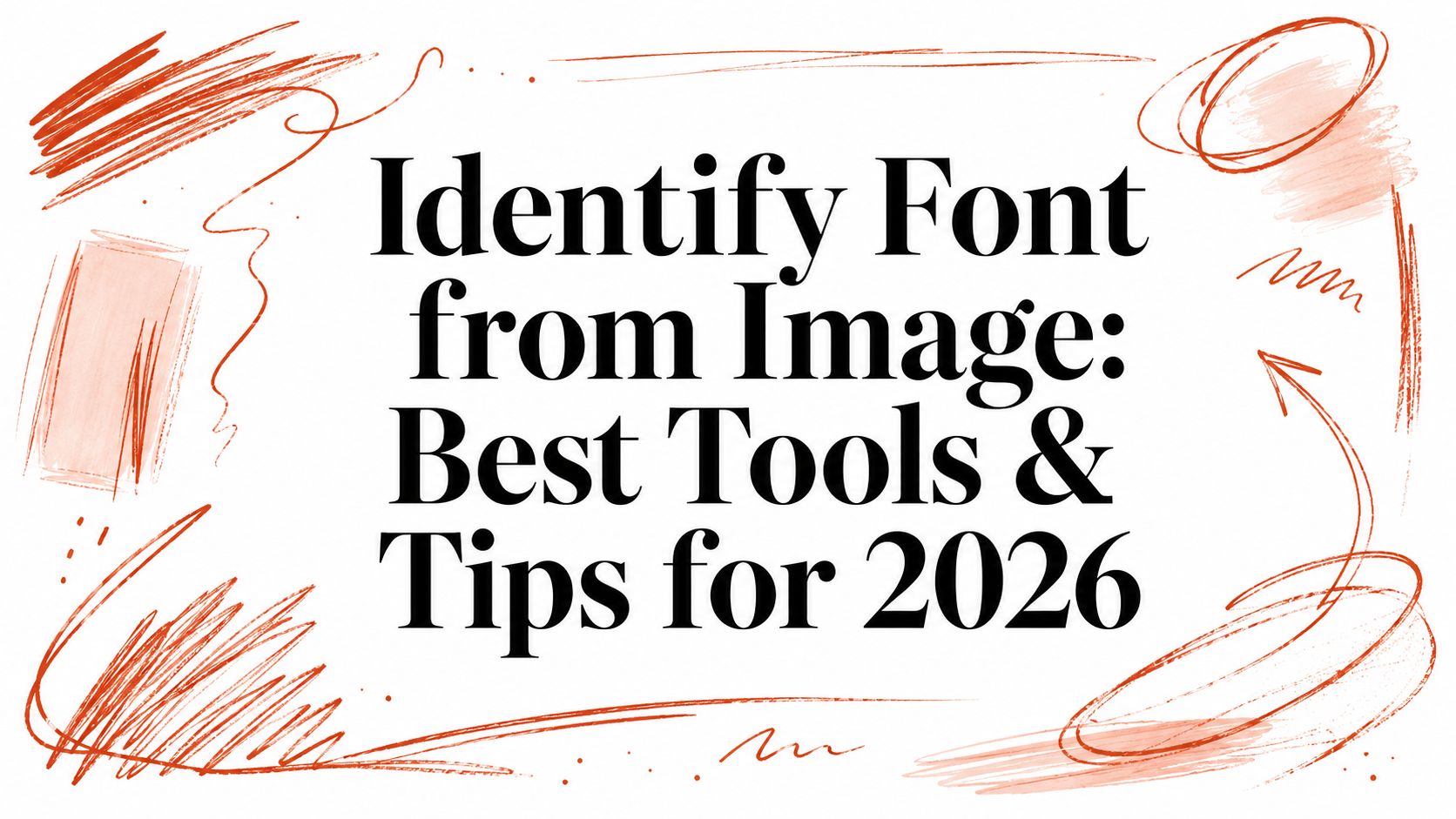
A client sends over a low-resolution JPEG of an old ad, a cropped logo from packaging, or a phone photo of signage and asks a simple question: can we use this font on the new site?
That request sounds like a design task. In practice, it touches design consistency, engineering, procurement, and legal review at the same time. If you identify the wrong typeface, the redesign drifts off-brand. If the developer ships the wrong files, performance can suffer. If the team assumes a font used in print is also cleared for web use, the business can end up in a licensing dispute.
Many approach this as a matching game. Professionals can't. They need a workflow that helps them identify a font from an image, document how they got there, and then verify whether the organization has the right to use that font in the intended channel.
Why Finding That Font Is Harder Than It Looks
The hardest jobs rarely start with a clean specimen sheet. They start with compromised evidence.
A designer gets a screenshot pulled from a social post. A project manager forwards a flattened PDF exported years ago. A brand team has only a phone photo from a trade-show wall. The visible text may be warped, compressed, outlined, blurred, or cut off halfway through a word. Yet the question still arrives with urgency: “What font is this, and can we deploy it?”
The image is only one part of the problem
If all you needed was a rough visual match, the stakes would be low. But teams usually need more than “close enough.”
They need to know whether the match is exact or just similar, whether the file in use is current, whether the typeface is available for web embedding, and whether the decision will hold up if someone challenges it later. That's why a fast visual guess often creates more cleanup work than it saves.
Practical rule: If the request includes the words “brand,” “website,” “client approval,” or “license,” treat it as an audit problem, not a casual identification task.
Designers feel the first pressure. They're asked to preserve the look of an existing asset, even when the source material is poor. Developers inherit the second pressure. They need to implement a usable stack, avoid unnecessary font payload, and stop last-minute substitutions from slipping into production. Legal and compliance teams carry the final pressure. They need evidence that the organization didn't just imitate a type choice but obtained the right to use it.
Similar is not the same
Many fonts are near-neighbors. That's where projects get into trouble.
A low-quality image can make a humanist sans look like a geometric sans. A distressed serif can conceal the details that separate one commercial family from another. Script and blackletter styles are even worse because decorative strokes can mask the structural clues that identification depends on.
For brand-sensitive work, “close enough” often fails review. For licensing, it can fail harder. A team might buy one family because it appears to match, only to learn later that the original asset used a different foundry release or a different package altogether.
That's why the work needs a chain of reasoning. If you've ever reviewed a brand reconstruction, this kind of analysis in this audit of an iconic brand's type is the right mindset: start from evidence, compare characteristics, and separate visual resemblance from defensible identification.
The real deliverable is a defensible answer
A professional outcome usually includes three things:
- A likely identification: The closest exact match, or a ranked set of plausible candidates.
- An evidence trail: What letters were visible, what features mattered, and what uncertainty remains.
- A usage decision: Whether the team can proceed, needs a license check, or should escalate for human review.
That's the difference between a font hunt and a typography workflow. One ends with a name. The other ends with a decision people can act on.
The Technology Behind Font Recognition
Font recognition works because letterforms carry repeatable visual patterns. Even when the text content changes, the shapes still reveal the underlying design system.
The simplest way to think about it is facial recognition for typography. A machine doesn't “read” the sentence the way a person does first. It measures visual traits. Stroke contrast, serif shape, aperture width, x-height feel, terminal style, curve tension, and spacing patterns all act like identifying features.
What the system actually analyzes
When you upload an image, the software usually has to do several jobs before it can suggest a typeface.
Find the text region It separates likely letterforms from the background. Busy textures, shadows, and perspective distortion make this harder.
Normalize the sample The system tries to account for scale, angle, and uneven lighting so it can compare like with like.
Extract features It measures shape cues that matter across many glyphs, not just one letter in isolation.
Compare against an index The extracted signature is matched against known font data. Results often come back as candidates, not a single certain answer.
That last point matters. The output is probabilistic. Good systems don't “know” a font in the abstract. They estimate which indexed fonts most closely fit the observed shapes.
A foundational milestone in this field was the 2015 DeepFont paper, which reported higher than 80% top-5 accuracy on its collected real-world image dataset and noted that recognition didn't require content information, meaning it could infer font identity from visual shape cues alone. The same work also described about 6× model compression without visible loss of recognition accuracy, which matters in production systems that need to balance speed and memory use as documented in the DeepFont paper.
Why results vary even when the tech is good
Automated recognition is strongest when the sample contains distinctive letters and enough clean edges to compare reliably. It weakens when the image hides those clues.
A few common failure points:
- Too little text: One or two generic letters rarely provide enough evidence.
- Outlined or expanded text: Heavy effects can erase the original design logic.
- Perspective distortion: Angled signage can stretch letters differently across the same word.
- Compression artifacts: Screenshots and reused web graphics often introduce false edges.
Good recognition depends less on the word itself than on whether the visible shapes still preserve the font's structural fingerprint.
For teams deciding whether to trust an automated result, the practical question isn't “did the system return a name?” It's “did the sample contain enough distinctive evidence to make the result meaningful?” That's also why a manual review layer is still important, especially for licensing or brand-critical work. If you want the risk lens on that trade-off, this guide on manual check vs automatic font scanner safety is worth reviewing.
A Curated Toolkit for Font Identification
Not every font-identification task deserves the same workflow. The right approach depends on what you're trying to prove.
If you're a designer exploring references, speed matters most. If you're trying to reconstruct a live website's typography, the image itself may not be your best evidence. If the result feeds a compliance or procurement process, you need traceability more than convenience.
Commercial recognition has expanded far beyond research prototypes. One mainstream image search service says it searches over 233,000 fonts, and major creative software now treats visual font search as a normal production action rather than a specialist task as described on the WhatTheFont page.
Quick lookups
These are useful when you need directional answers fast. You upload an image, crop the text line, and get a list of candidates.
That's enough for moodboarding, concept exploration, or early-stage design review. It's often not enough for sign-off. The output may be visually close but operationally incomplete, especially when the sample is poor or the font family has many near-variants.
Use this path when:
- You need a shortlist: You're narrowing possibilities, not certifying a match.
- The image is reasonably clean: Straight baseline, visible counters, and enough characters to compare.
- Licensing isn't decided yet: The goal is discovery, not approval.
Avoid relying on it alone when the team needs a purchase decision, a legal record, or a production-ready implementation plan.
Browser and document inspection
Sometimes the smartest way to identify a font from an image is not to use the image as the primary source at all.
If the text came from a live page, inspect the page. If it came from a PDF, audit the PDF. If the asset is a packaged design file, review the embedded references or handoff exports. These methods often reveal family names, weights, subsetting choices, and fallback behavior that a visual crop can't.
This route is stronger when:
| Situation | Better evidence |
|---|---|
| Live site text | Browser or site-level inspection |
| Downloaded brochure | PDF font audit |
| Design handoff package | Export and asset review |
| Social screenshot only | Image-based identification |
Many teams save time with this approach. They stop treating every mystery as a vision problem and instead ask where the typography was deployed.
Professional audits
For agencies, in-house teams, and compliance reviews, font identification should connect directly to verification.
That means the tool or process needs to do more than suggest likely names. It should help connect the observed typography to files in use, license context, and reporting that someone beyond the design team can understand. A platform like Font Checker Pro's font-from-image workflow fits that category because it treats image matching as one input inside a broader audit trail rather than as a standalone novelty.
A practical professional workflow usually looks like this:
- Start with the strongest source available: Image if that's all you have, but prefer live assets when possible.
- Capture ranked candidates: Keep the shortlist instead of forcing certainty too early.
- Cross-check against deployed files: Especially on websites, apps, PDFs, and exported brand assets.
- Move into license review: Once the likely family is known, verify permitted usage by channel.
If the result will affect procurement, release timing, or legal exposure, don't stop at identification. Treat the name as the beginning of the work.
That mindset keeps teams from making a very common mistake: approving a visually plausible match and assuming the business side is resolved.
Advanced Techniques for Difficult Images
Most public advice on font matching breaks down exactly where professionals need it most. It tells you to upload a clear image, crop tightly, and try again if the result looks wrong.
That's not useful when the only evidence is bad. And bad evidence is normal. Teams work from screenshots, archived assets, camera photos, partial logos, embossed packaging, angled storefronts, and text that has already been rasterized multiple times. Current guidance often acknowledges that blurry or pixelated images reduce accuracy, but it still leaves people with the same shallow instruction: get a clearer sample. That gap is real, and it matters when the actual question is how to get a defensible result from imperfect evidence as noted in this discussion of low-quality image matching.
Clean the evidence before you guess
A difficult image usually improves more from preparation than from repeated uploads.
Start by making the letterforms easier to inspect:
- Increase contrast: Push dark text darker and light backgrounds lighter so edges become clearer.
- Correct perspective: If the text sits on signage or packaging at an angle, straighten the baseline first.
- Isolate one line at a time: Mixed layouts confuse recognition because different fonts may appear in the same crop.
- Remove noise around the text: Shadows, icons, and textures can interfere with segmentation.
Don't over-edit. Sharpening too aggressively can invent edges that weren't there. The goal is to recover the structure of the glyphs, not stylize the image.
Look for the letters that tell the truth
When the sample is weak, the whole word often helps less than a few distinctive glyphs. Experienced reviewers don't stare at everything equally. They hunt for the letters that reveal design intent.
Useful tells include:
- Lowercase g: Single-storey versus double-storey form, ear shape, loop tension.
- Lowercase a: Another fast separator between broad categories.
- Uppercase R: The leg shape often distinguishes closely related families.
- Lowercase y: Tail angle and terminal treatment can be surprisingly diagnostic.
- Numerals: If present, they can expose whether the family is old-style, lining, geometric, or humanist in feel.
Field note: In bad images, generic letters such as H, I, O, and N rarely settle the question. Unusual terminals and awkward joins do.
Once you identify those key glyphs, compare candidates by structure, not by overall vibe. Two fonts may both “feel modern,” but one may have a horizontal e bar, a narrower aperture, or a different shoulder on the n. Those details are what survive scrutiny.
Work from category before family
Trying to jump straight to an exact family from a damaged sample often wastes time. Narrow the field first.
Ask these questions in order:
- Is it serif, sans, script, blackletter, or display?
- Is the stroke contrast low, moderate, or strong?
- Are the shapes geometric, humanist, or grotesque?
- Does the texture look regular or intentionally irregular?
- Do repeated letters behave consistently, or do they alternate forms?
This sequence matters because category mistakes send the whole search in the wrong direction.
Difficult styles need human judgment
Blackletter and script fonts are where automated matching often struggles most. Decorative complexity hides the structural skeleton. To a rushed review, several blackletter samples can look interchangeable. They aren't.
If you're dealing with blackletter, focus on the architecture:
- Textura-like feel: Narrow, vertical, dense rhythm with sharp broken strokes.
- Fraktur-like feel: More curvature and more visible flourish in certain joins.
- Swash-heavy display variants: Often look historical but behave more like decorative modern revivals.
Partial words make this harder because you may only see capitals or only see repeated minims. In those cases, compare stroke endings, interior counters, and whether diagonals or curves dominate the construction. If the image remains ambiguous after cleanup and category analysis, document the uncertainty and keep multiple candidates alive.
When you need to compare image-derived candidates against broader implementation evidence, this comparison workflow is the right next step. It helps shift the conversation from “which one looks closest?” to “which result survives side-by-side review?”
Beyond Identification The Critical Role of Font Licensing
Getting the name right is only half the job. Sometimes it's not even the expensive half.
A team can correctly identify the font in an image, purchase a file, install it in design software, and still have no right to use it on a public website. That's because desktop licensing and web licensing are not the same thing. A license for creating static designs usually doesn't automatically grant the right to self-host, embed, or serve that font online.
Where teams get caught
A common pattern looks like this.
The designer identifies the font from an image and uses it in mockups under a license attached to a desktop workflow. The client approves the direction. The developer then receives the font file in a handoff folder and assumes that if the business paid for it once, web use is covered. It may not be.
That mismatch creates risk in several ways:
- Usage can exceed the granted rights: A font licensed for print assets may not cover web embedding, app embedding, or distribution to external collaborators.
- The purchased package may be incomplete: The team might have one weight but deploy several.
- The source of the file may be unclear: Old project folders often lose the original invoice, EULA, or vendor terms.
None of this is theoretical in day-to-day practice. It's one of the most common causes of typography cleanup during redesigns and migrations.
Identification without verification is not governance
This is why font identification should feed a verification process, not end one.
A useful review asks:
| Question | Why it matters |
|---|---|
| What font is this? | Establishes the likely family and style |
| Where is it being used? | Determines the actual channels and files affected |
| What license does the organization hold? | Confirms permitted usage |
| Does that license match the deployment method? | Separates desktop, web, app, and other rights |
| Can the team prove it later? | Reduces dispute and handoff risk |
If your organization can answer the first question but not the rest, it doesn't yet have control of its typography.
Licensing review is operational work. It affects procurement, deployment, client approvals, and incident response.
That's also why “free” and “safe” are dangerous words around fonts. Even when a file is inexpensive, bundled, or widely circulated, the actual rights still depend on the license terms attached to that file and the way your team intends to use it. Never assume a font is cleared just because it's easy to download or because someone used it in a prior project.
Keep legal review practical
This article is informational, not legal advice. Teams should review their own license terms and get legal guidance when they need a formal interpretation.
Still, some habits make compliance much easier:
- Store proof of purchase and terms together: Not in separate inboxes and shared drives.
- Track by use case: Desktop, web, app, e-book, server, and client distribution can all differ.
- Audit before redesigns and migrations: That's when old assumptions usually break.
- Require evidence in handoff: A font file without license context is not a complete deliverable.
For a plain-English foundation on the issue, this explanation of what a font license is and why it matters for businesses is a useful reference point.
Building a Compliant and Performant Typography Workflow
Teams that handle typography well don't treat it as a one-off design choice. They treat it as governed infrastructure.
That matters more as digital typography grows in business importance. One market projection places the global web-font market at USD 2.58 billion by 2035 with 7.2% CAGR from 2025 to 2035, which signals why organizations keep investing in auditing, licensing control, and performance governance according to this web-font market projection.
A workable operating model
The most reliable workflow is simple, but it has to be enforced:
- Inventory what exists: List fonts in live sites, design systems, PDFs, campaign assets, and archived brand files.
- Verify rights by channel: Confirm that the held licenses match actual deployment, especially web versus desktop use.
- Define an intake rule: New fonts shouldn't enter production without source records, approved use cases, and ownership.
- Monitor drift: Rebrands, agency handoffs, and quick campaign launches are where rogue fonts appear.
- Review performance alongside compliance: Font choices affect payload, fallback behavior, and the visible experience during loading, including FOUT and FOIT.
The teams that should own it
This isn't only a design responsibility.
Design should own typographic intent. Engineering should own implementation quality. Procurement or operations should keep license records organized. Legal or compliance should review edge cases and dispute risk. When nobody owns the handoff between those groups, typography becomes expensive in quiet ways.
A mature process also reduces rework. Instead of repeatedly trying to identify a font from an image under deadline pressure, the team builds a searchable record of what it uses, what it's allowed to use, and what needs review before launch.